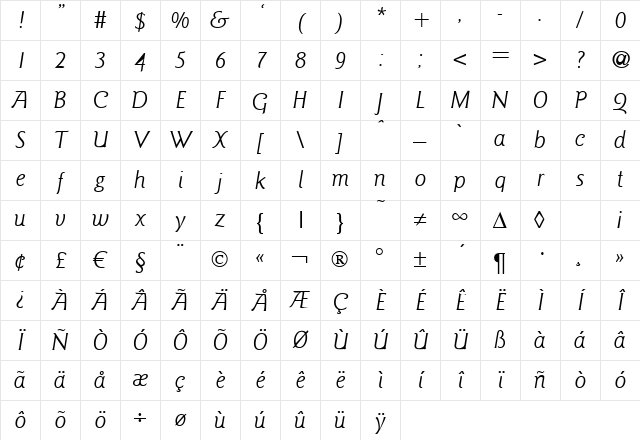
GoudyElegantTwo Italic
Design Context for GoudyElegantTwo
GoudyElegantTwo is a composed and adaptable typeface that performs quietly and consistently across a wide range of design contexts. The slanted form adds forward momentum and visual energy.
Pro Tip: Use GoudyElegantTwo for emphasis, pull quotes, and subheadings where its slanted energy can add rhythm to the layout.